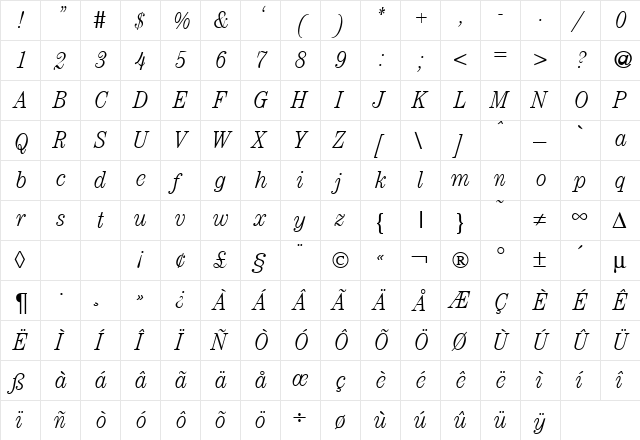
ModernCenturyCondLight RegularItalic Font Preview
Design Context for ModernCenturyCondLight Typeface
ModernCenturyCondLight takes a measured approach to typography — its balanced proportions and neutral character make it a reliable workhorse for both digital and print work. Its italic angle brings a sense of urgency and motion to the letterforms. The delicate stroke weight brings airiness and refinement to layouts. The condensed width makes it efficient for tight spaces without sacrificing legibility.
Pro Tip: Use ModernCenturyCondLight for emphasis, pull quotes, and subheadings where its slanted energy can add rhythm to the layout.